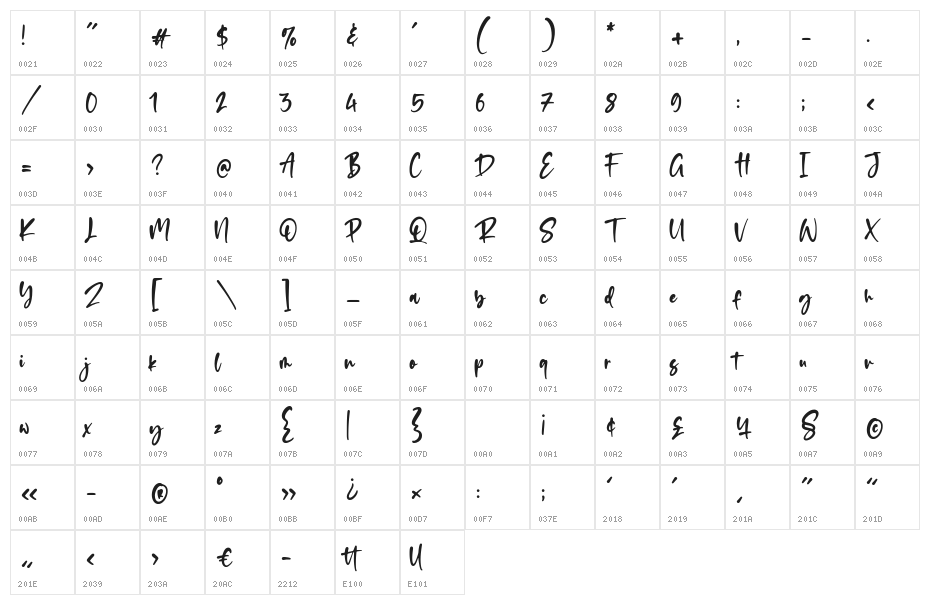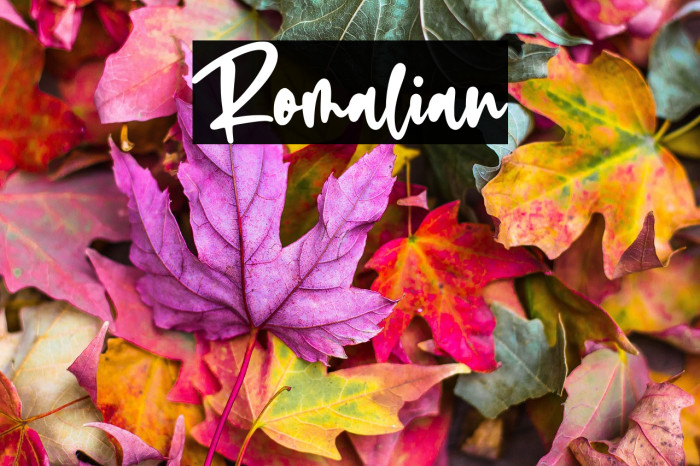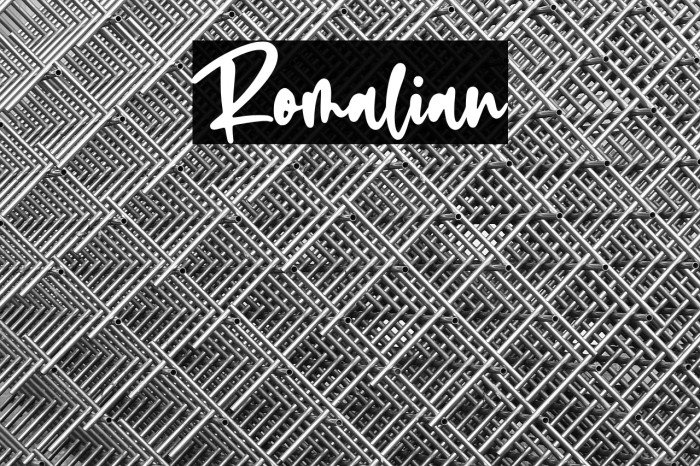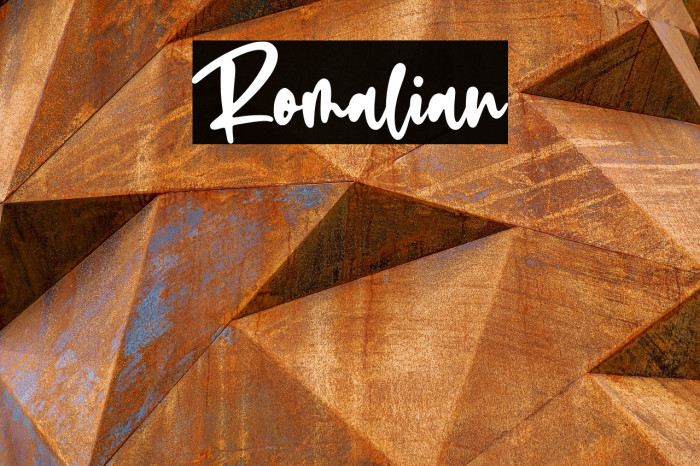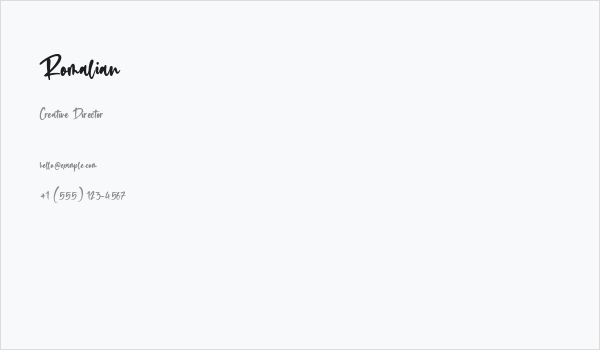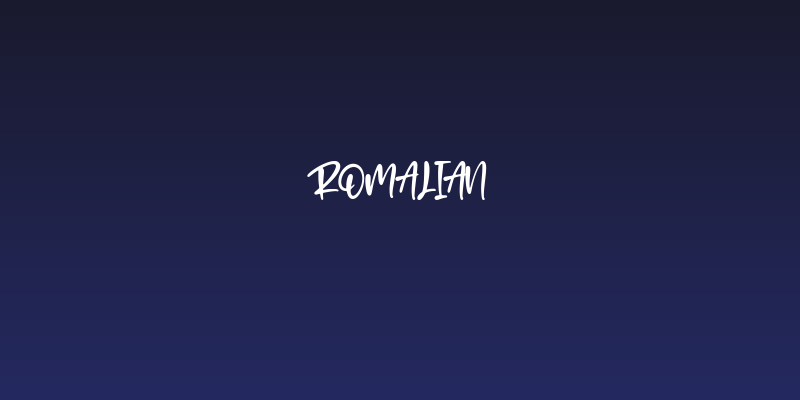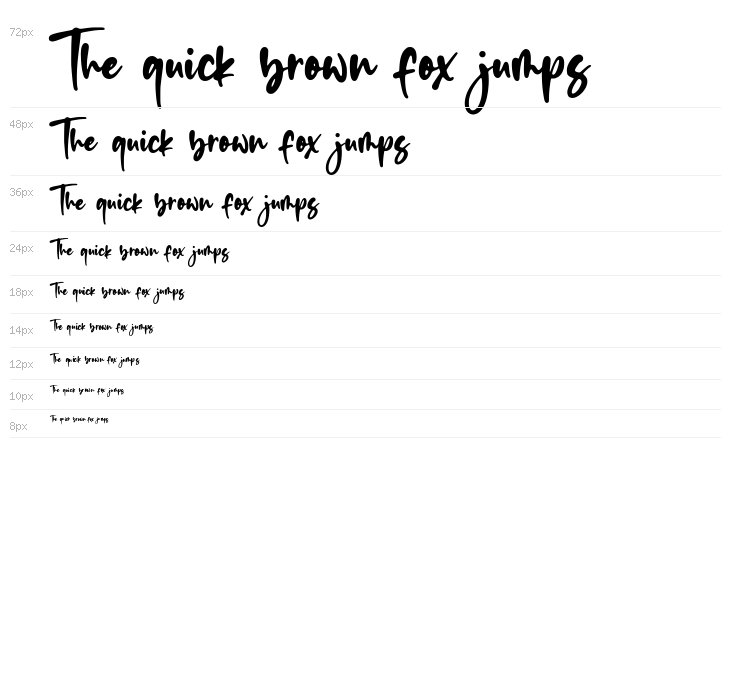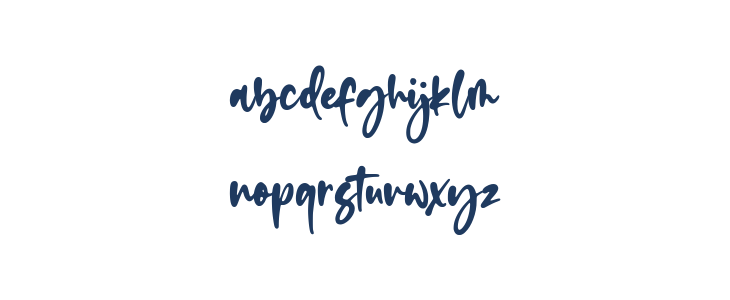
Romalian Font
Romalian Description
This font features a bold, handwritten style with a playful and energetic flair. The letters are slightly slanted, giving it a dynamic and informal appearance. The strokes are thick and consistent, providing a strong presence on the page. The uppercase letters are bold and prominent, while the lowercase letters maintain the same lively character. Numbers and special characters follow the same style, ensuring uniformity across all elements. This font is ideal for projects that require a personal touch or a casual, friendly vibe.
| Proposed Projects | Ideal for greeting cards, posters, social media graphics, and branding materials that aim to convey a personal and friendly tone. |